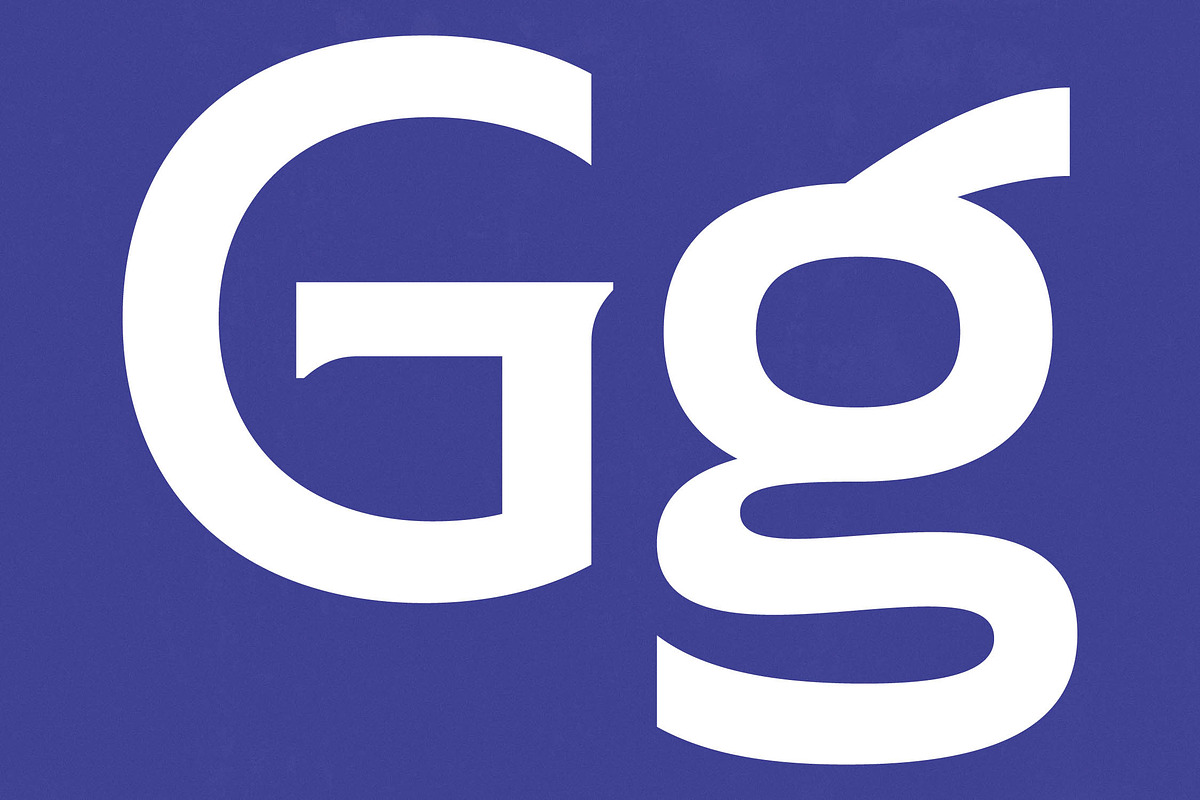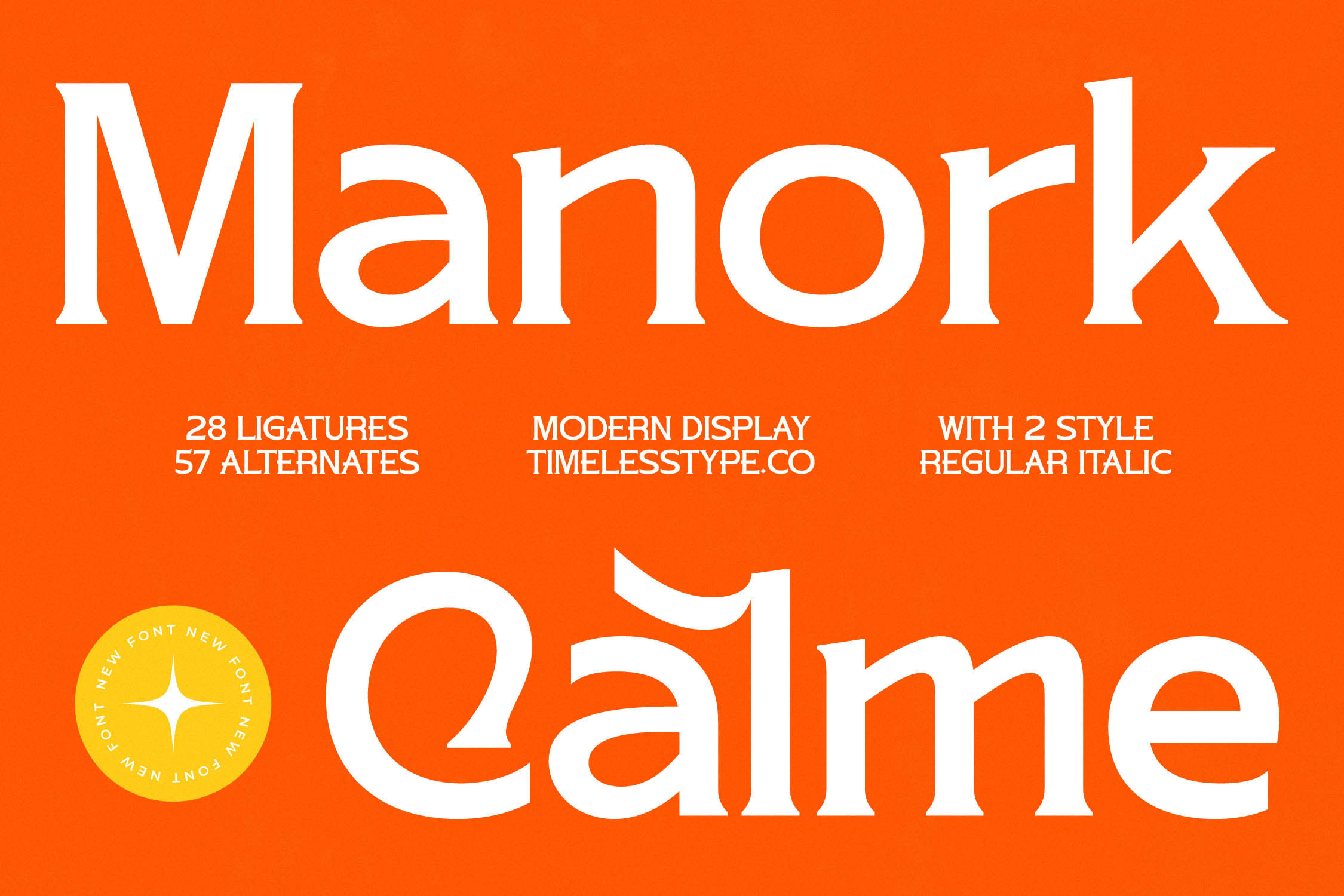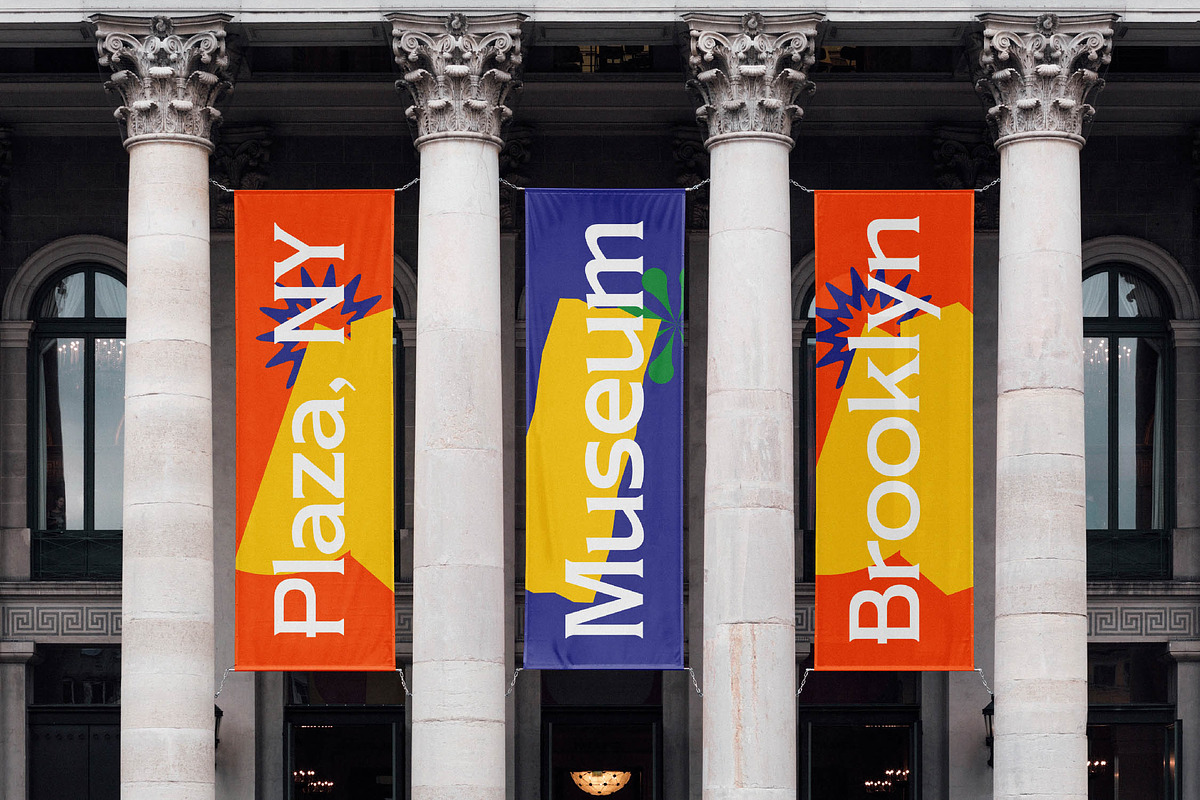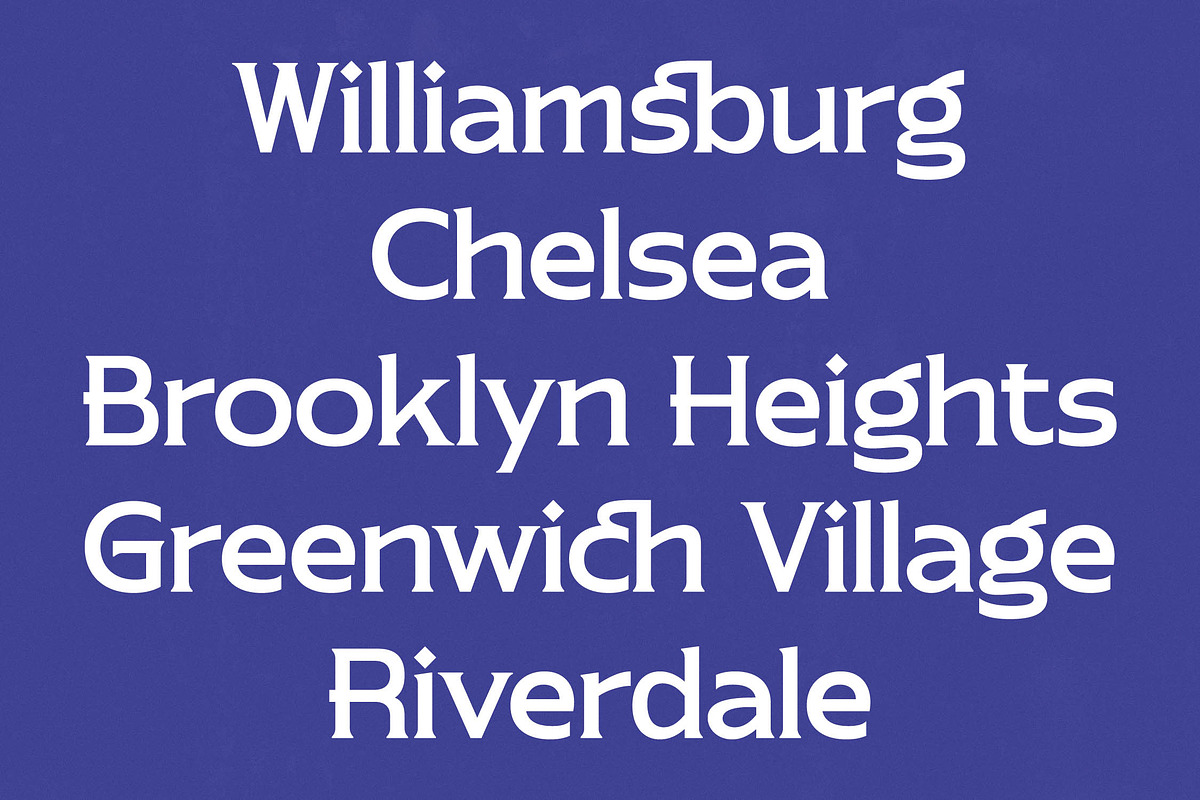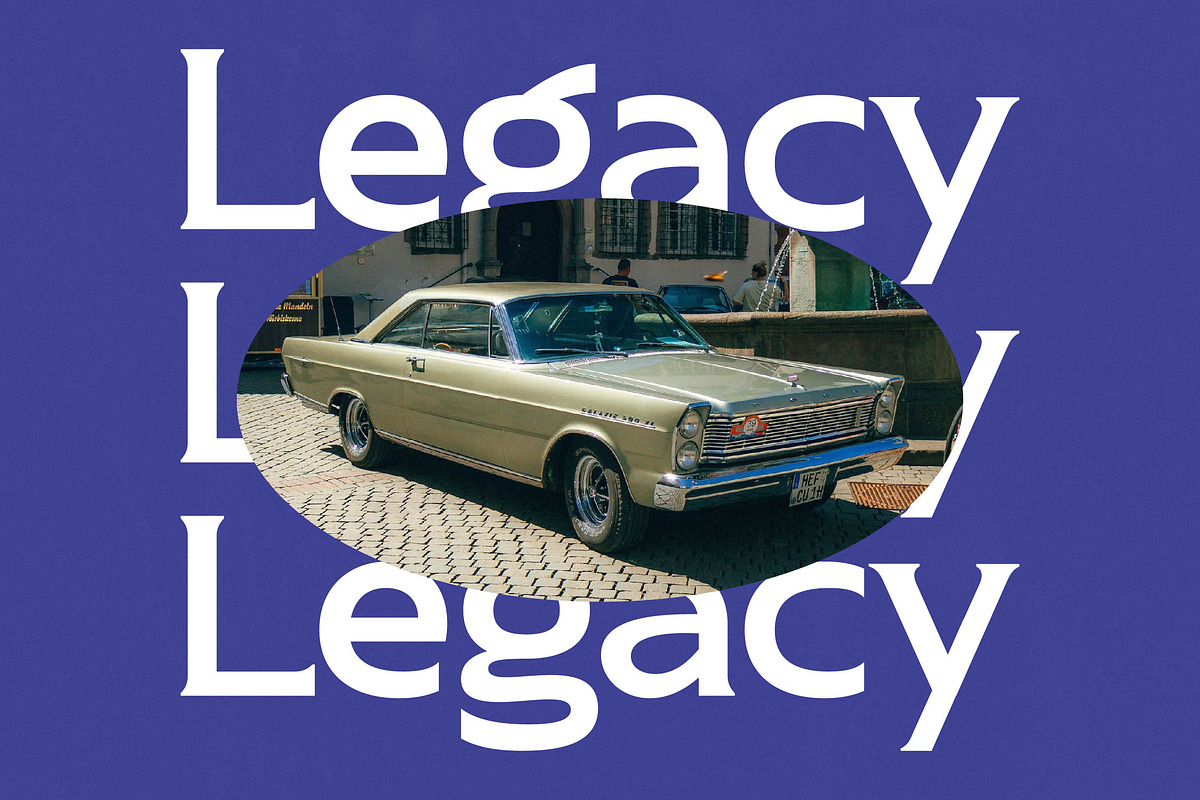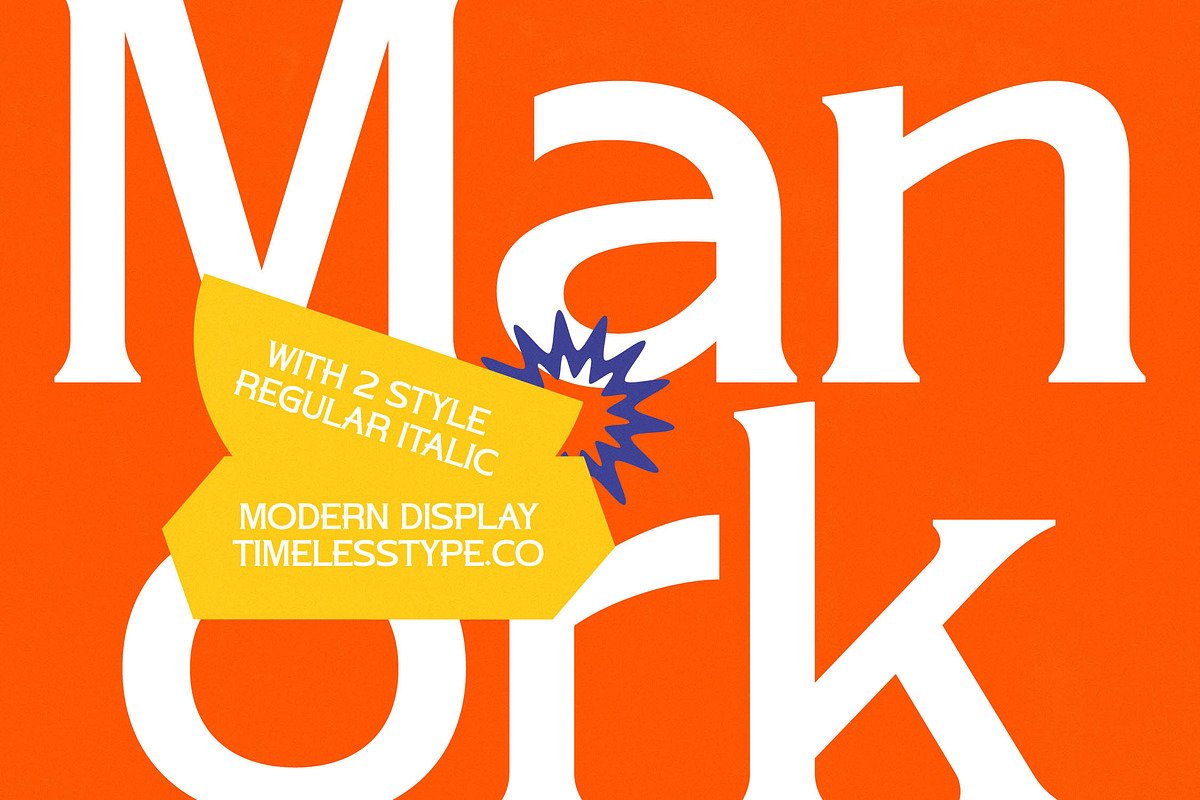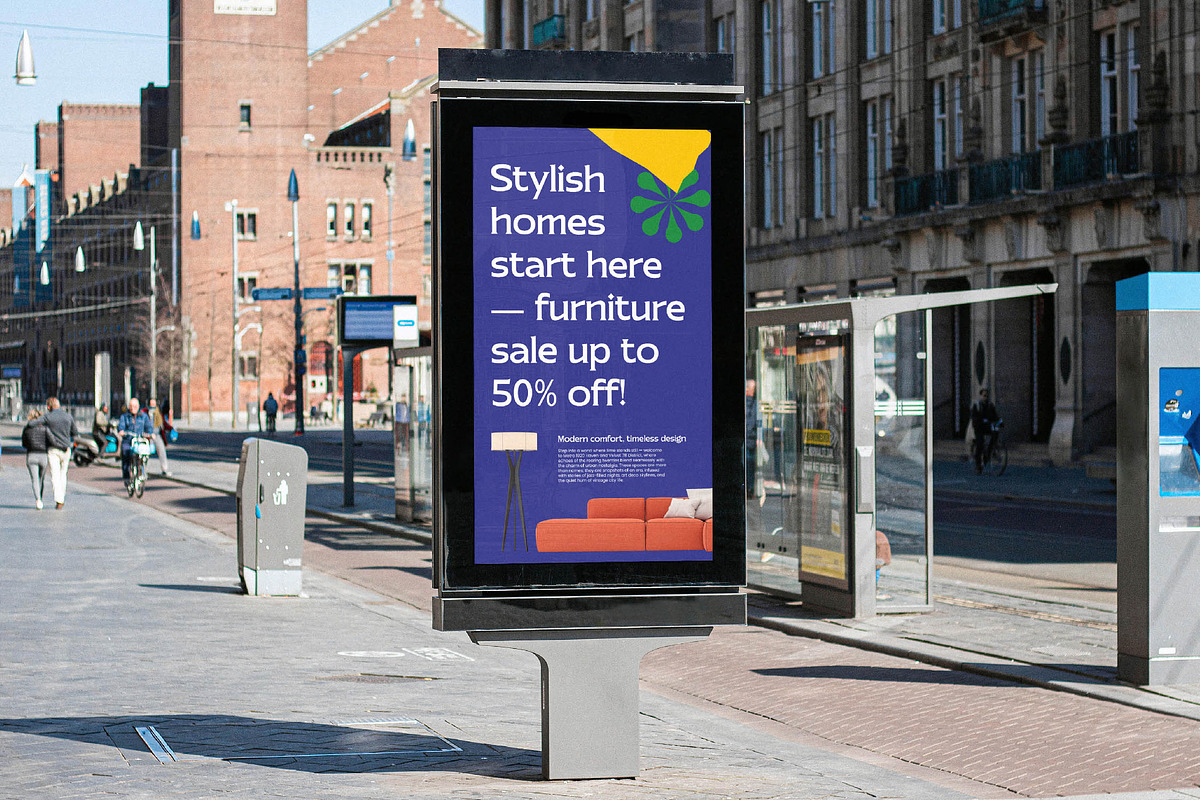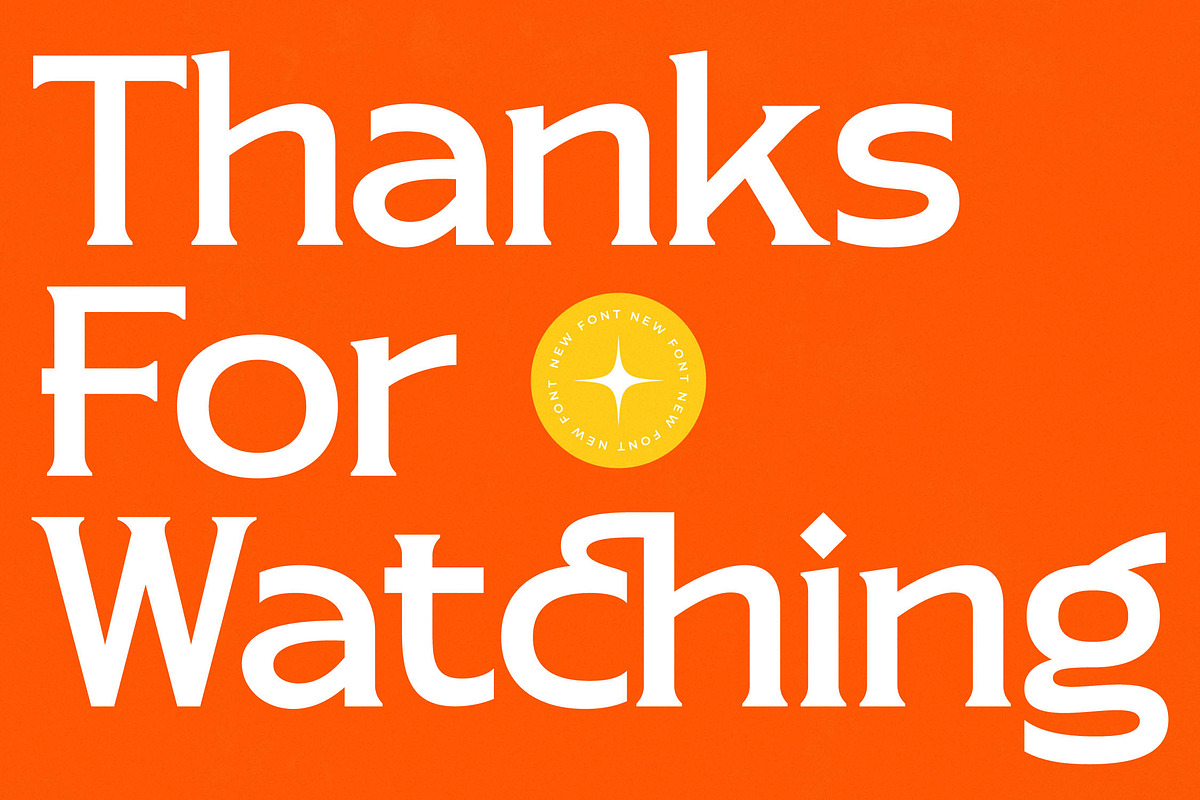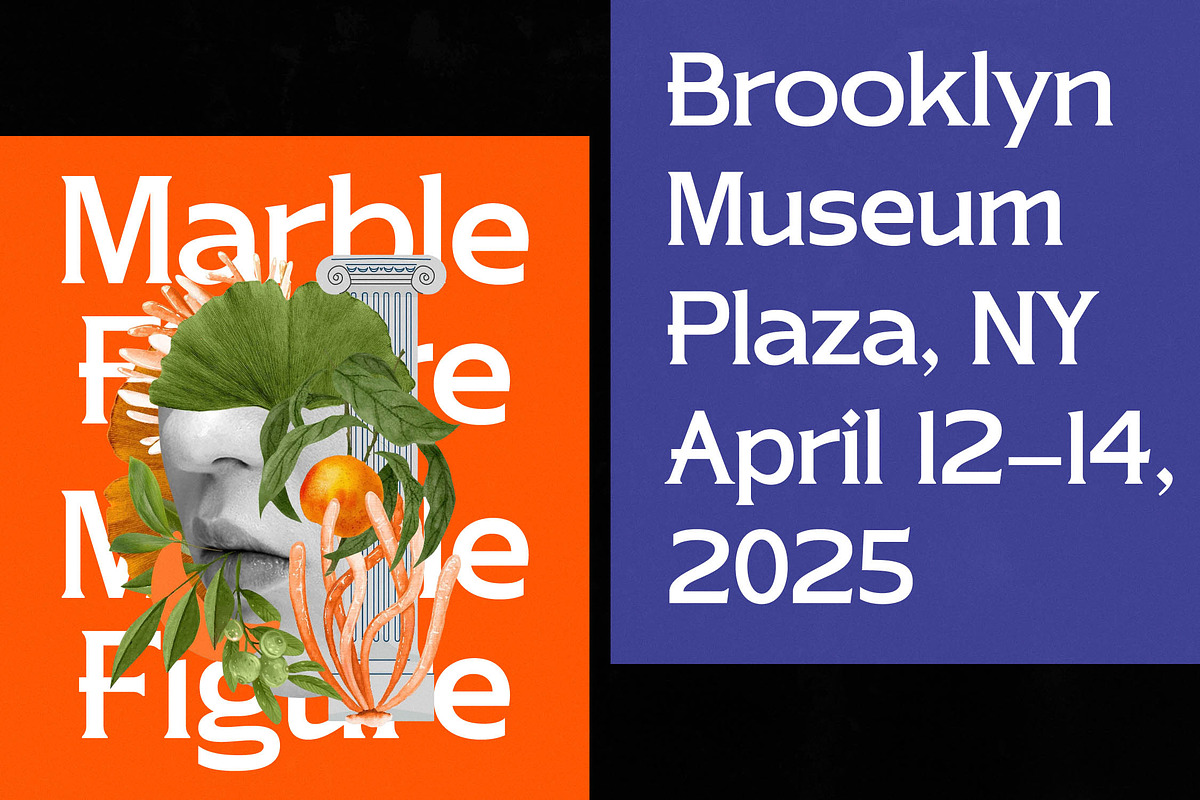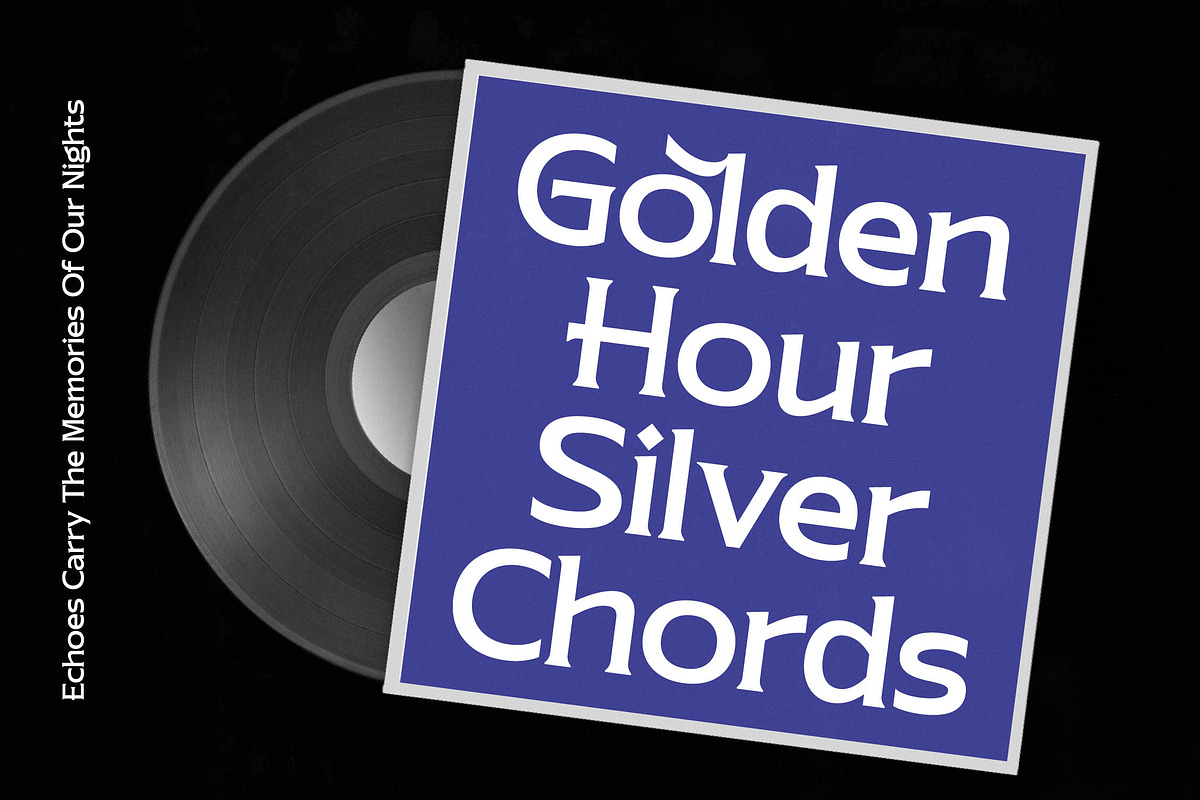
Manork Calme Modern Serif Font
Step into a world of refined elegance where every stroke tells a story of timeless beauty and contemporary flair with Manork Calme. This typeface is designed to command attention while maintaining a sense of effortless sophistication in every character.
Inspired by the intersection of classical European architecture and the bold spirit of mid-century editorial layouts, this font captures a unique atmosphere of serene confidence. It evokes the feeling of a sun-drenched Mediterranean villa where tradition meets modern minimalism in a perfect visual harmony.
The modern serif display nature of this typeface makes it a powerhouse for luxury typography, offering a high-contrast serif look that is both striking and legible. Whether used for a subtle header or a bold center-piece, this editorial font provides an immediate branding impact that elevates any creative project.
Aligning perfectly with the current modern serif trend, this typeface addresses the industry demand for editorial display fonts that break away from the mundane. Designers looking for character-driven typography will find its unique shapes and fluid alternates the perfect solution for cutting-edge aesthetic demands.
This versatile typeface is the ultimate tool for logo design and high-end branding initiatives that require a touch of class. From sophisticated editorial spreads and premium packaging to romantic wedding stationery and high-street fashion lookbooks, it adapts seamlessly to diverse creative needs.
The toolkit is packed with over 28 ligatures and 57 alternates to provide endless customization, including stunning swashes for a custom hand-lettered feel. Full multilingual support ensures your message reaches a global audience with a comprehensive set of international characters.
- Ligature 28 Alternate 57